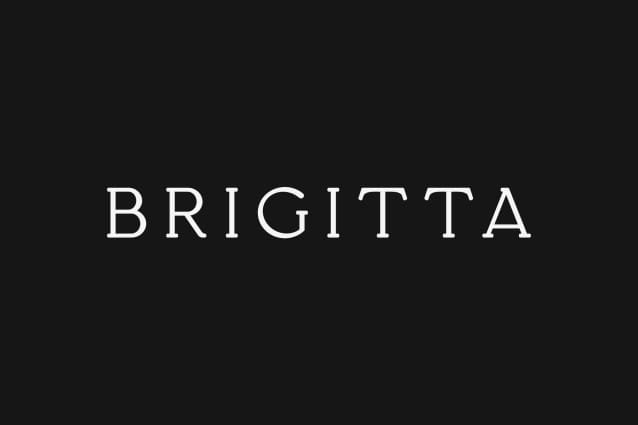
Brigitta Font
Brigitta Font, You can use it as a logo, badge, insignia, packaging, headline, poster, t-shirt/apparel, greeting card, and wedding invitation.